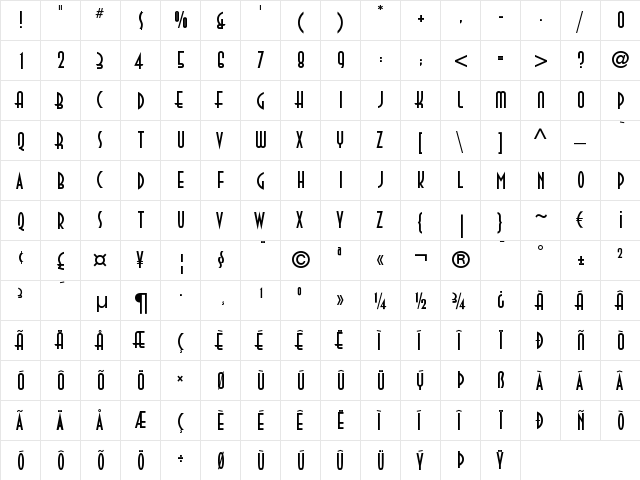
DecoTech TL Regular
Design Context for DecoTech TL Typeface
DecoTech TL channels digital-age aesthetics through its sharp, structured letterforms — ideal for brands that want to signal innovation.
Pro Tip: Use DecoTech TL in combination with a neutral sans for body text. Let it define the brand voice in headlines while keeping reading comfortable elsewhere.